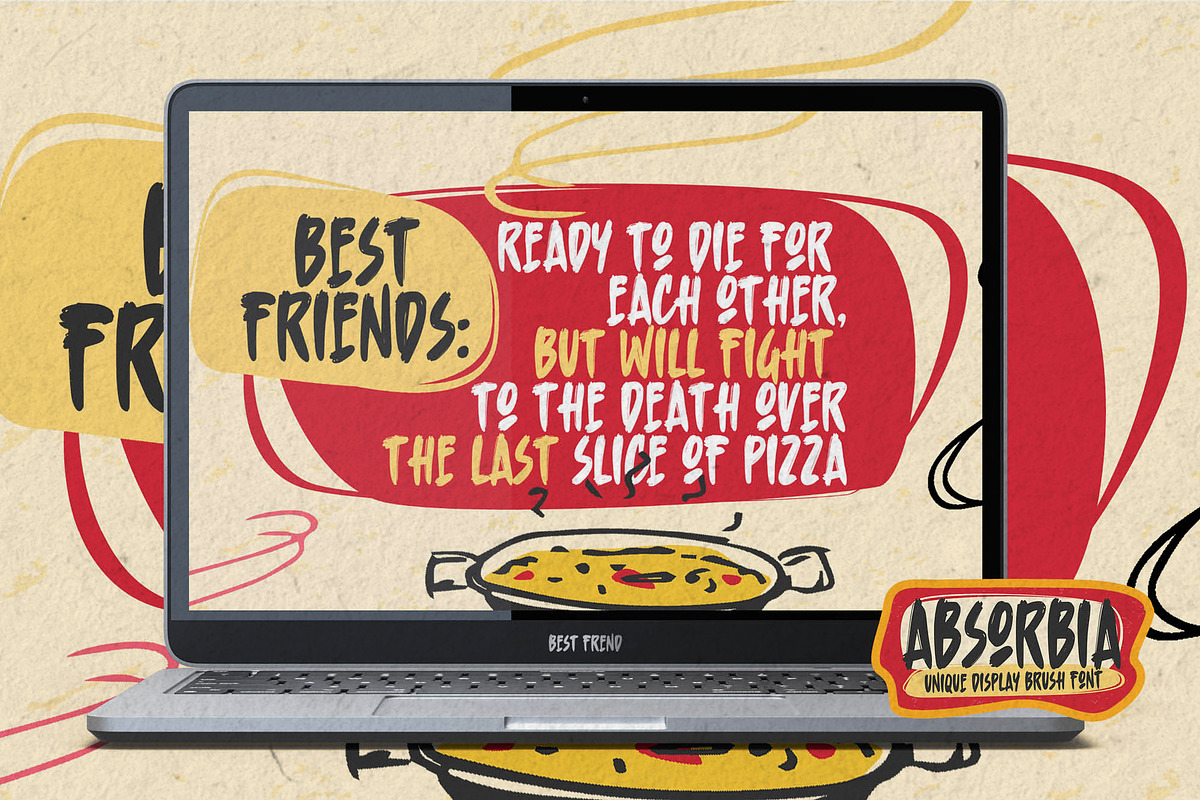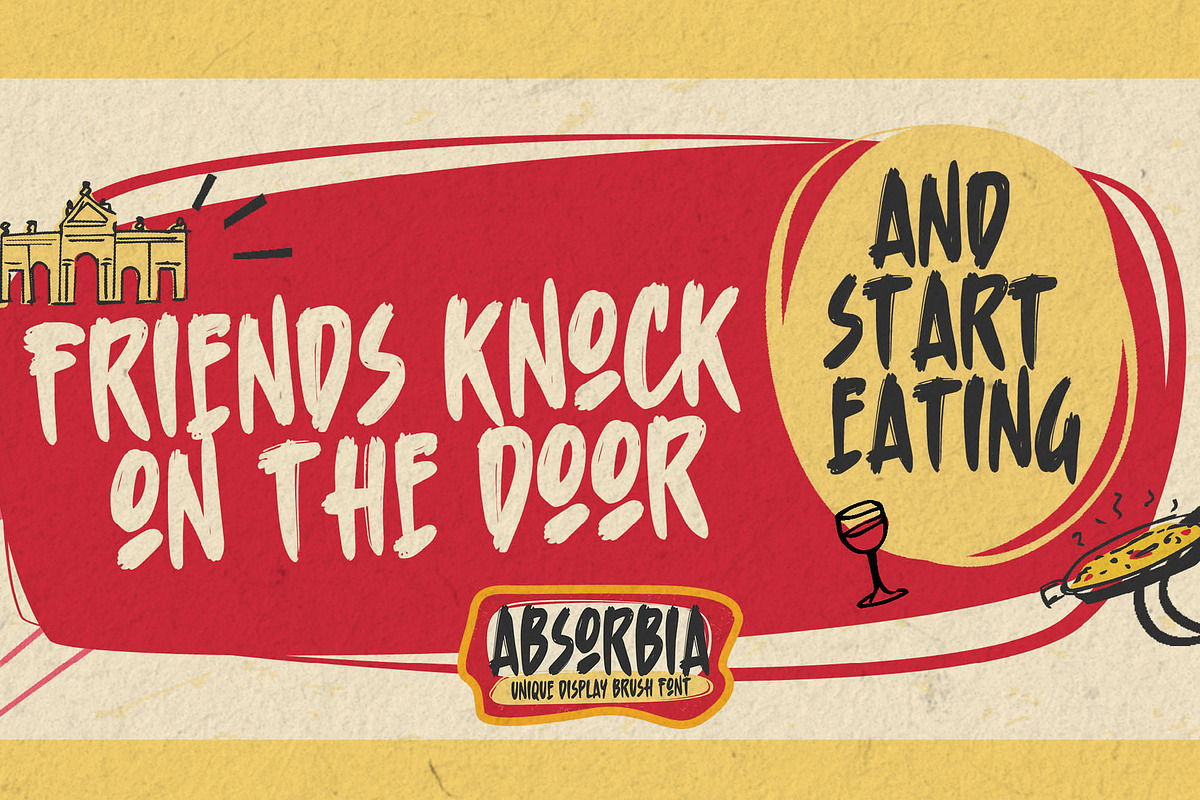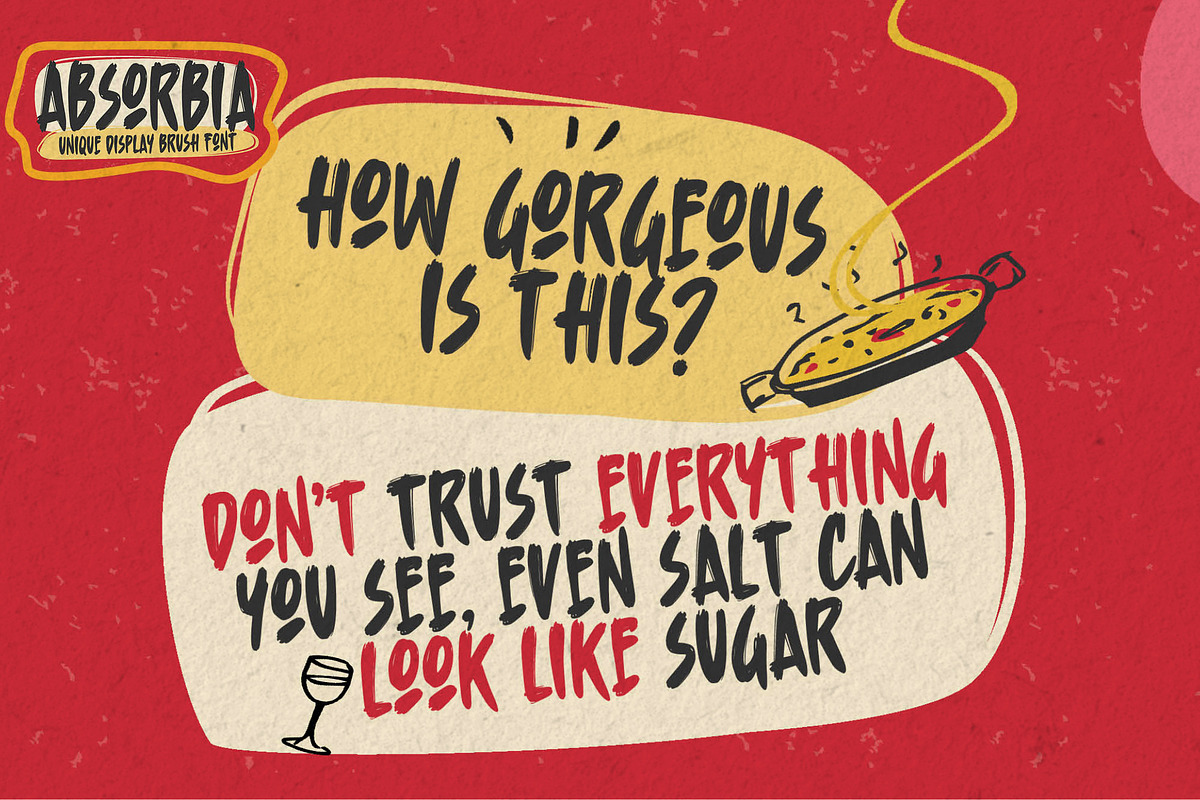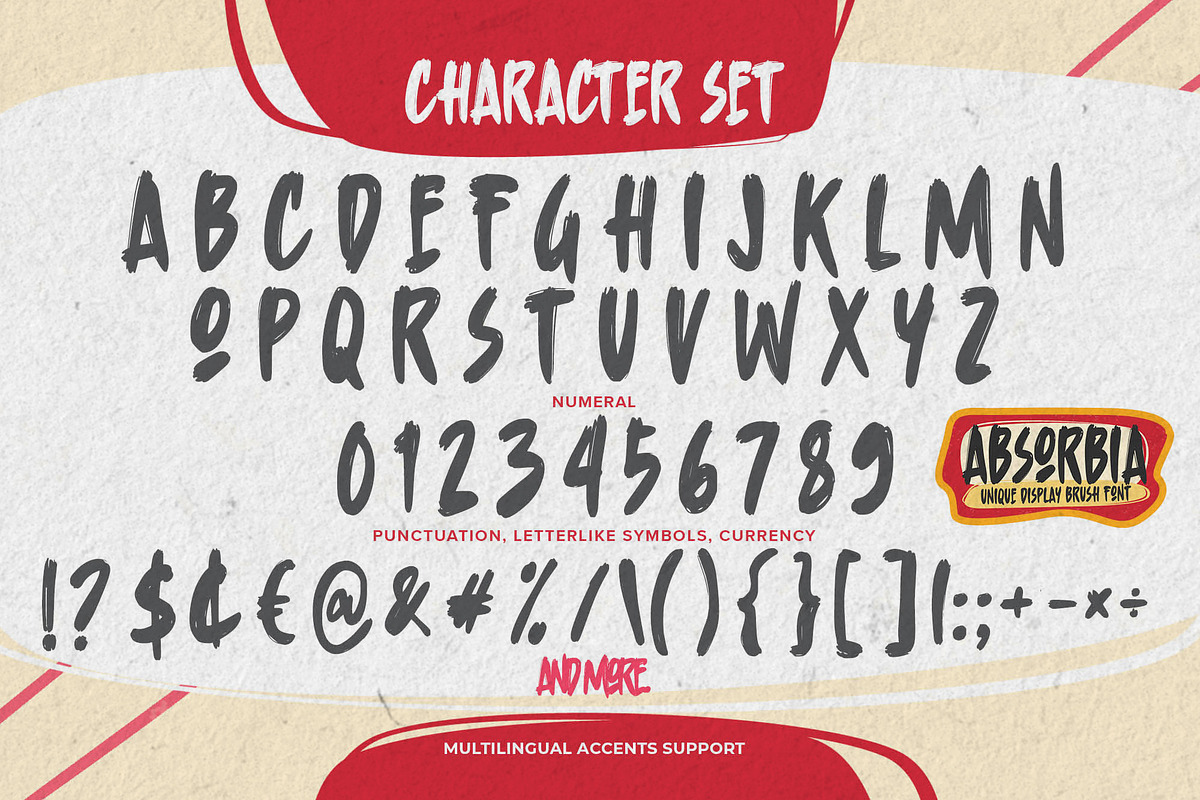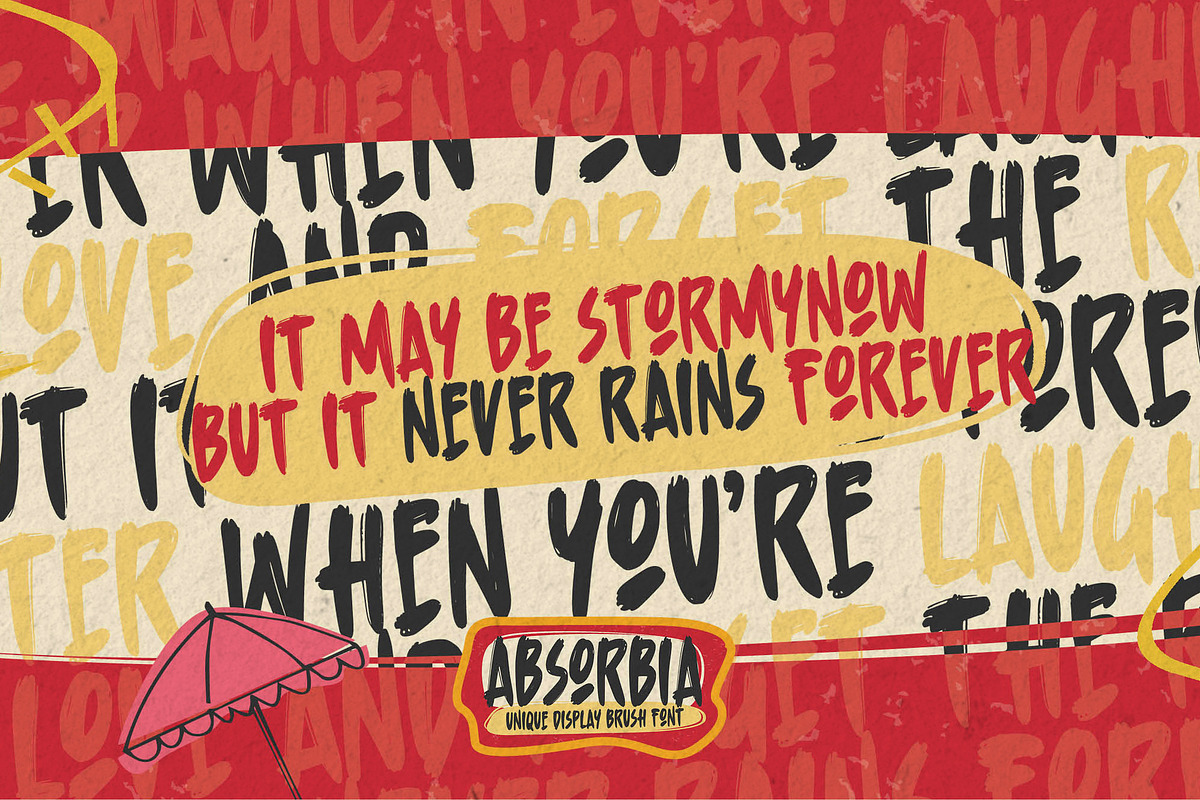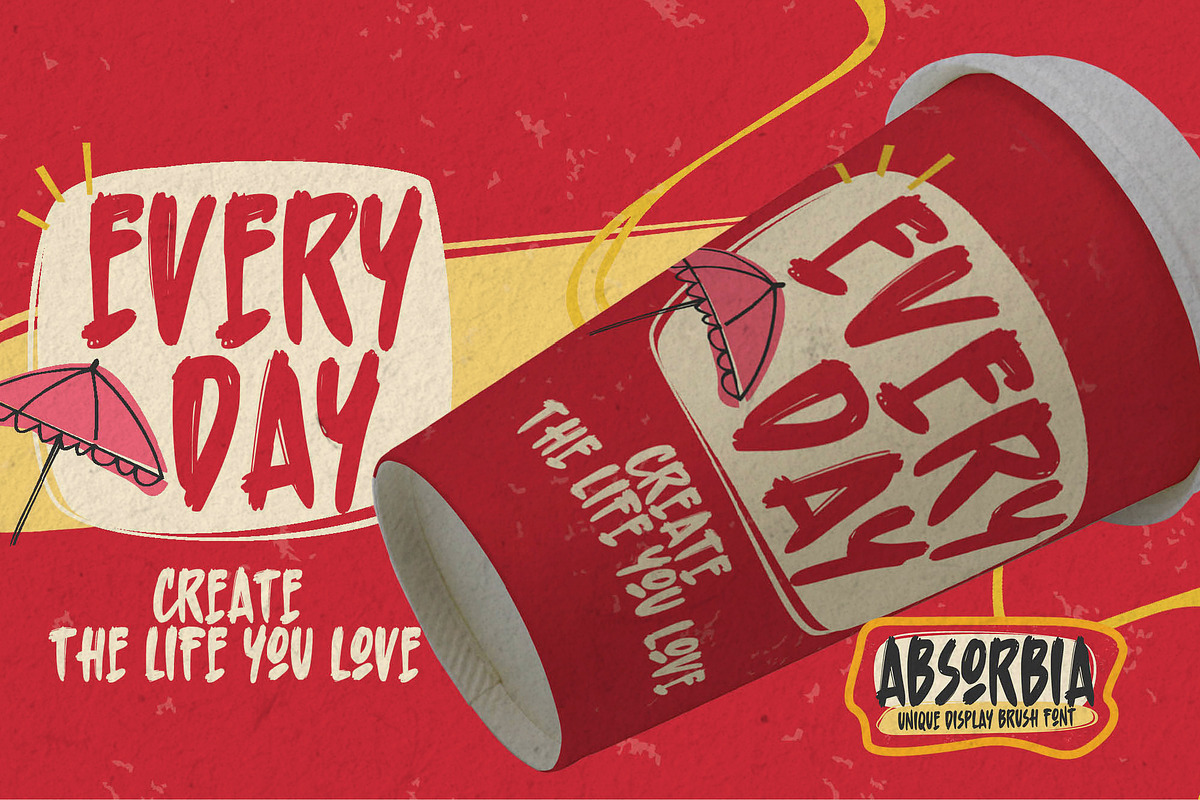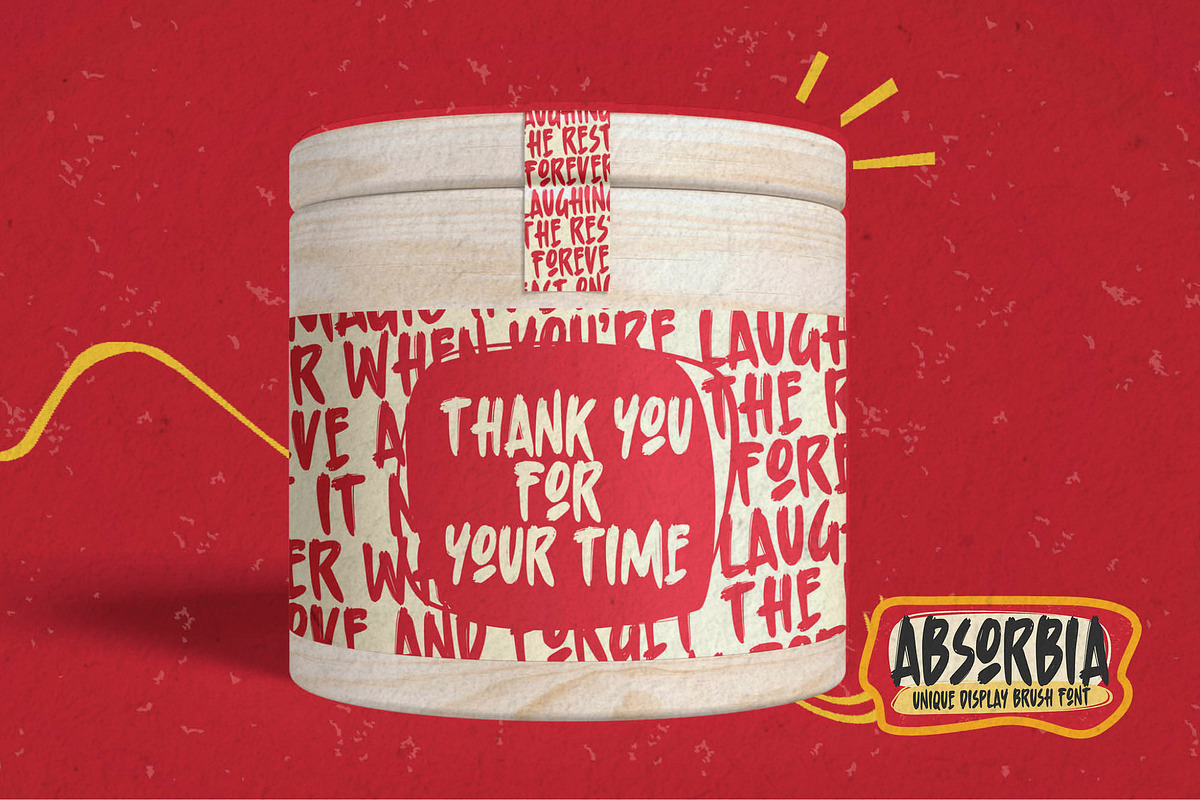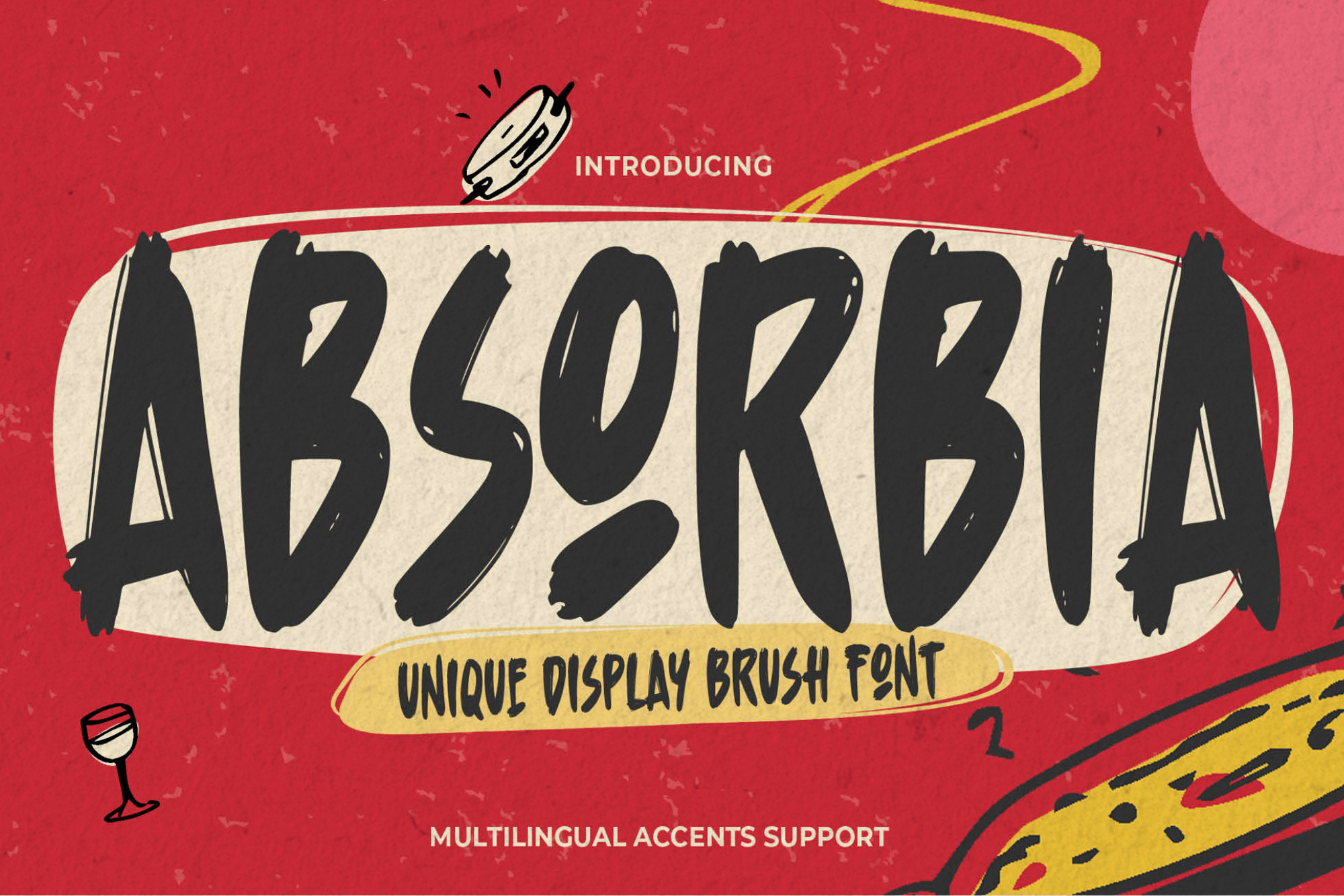
Absorbia – Unique Display Brush Font
Here comes a New font, Absorbia is a Unique Display Brush Font casually and quickly. Letters are made with brushes on Procreate. Then crafted carefully drawn into vector format. That is why Absorbia has charming, authentic and relaxed characteristic more natural look to your text with a more natural look to your text. You can activate Ligature OpenType panel to make these two styles. It also has many alternatives and underlines that make your text and design more interesting. Absorbia is perfect for homeware designs,branding projects, Logo design, Quotes product packaging